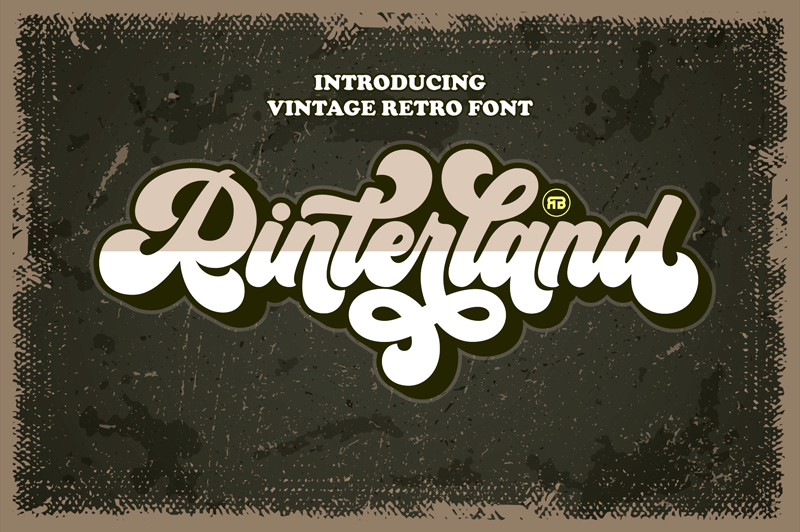
Font name: | Rinterland |
Author: | RGB Studio |
Rinterland is a Vintage retro font. Inspired from retro typography and lettering in the 70's and 80's combine with bold typography style. This demo font is for PERSONAL USE ONLY! But any donation are very appreciated. Paypal account for donation : https://PayPal.Me/payrgbstudio Link to purchase full version and commercial license : https://crmrkt.com/Pg1AgX For Extended License or Corporate License Please Reach Us on email : rgbstudio71@gmail.com if you need something! Happy Designing! Thank you. Regards, RGB Studio |